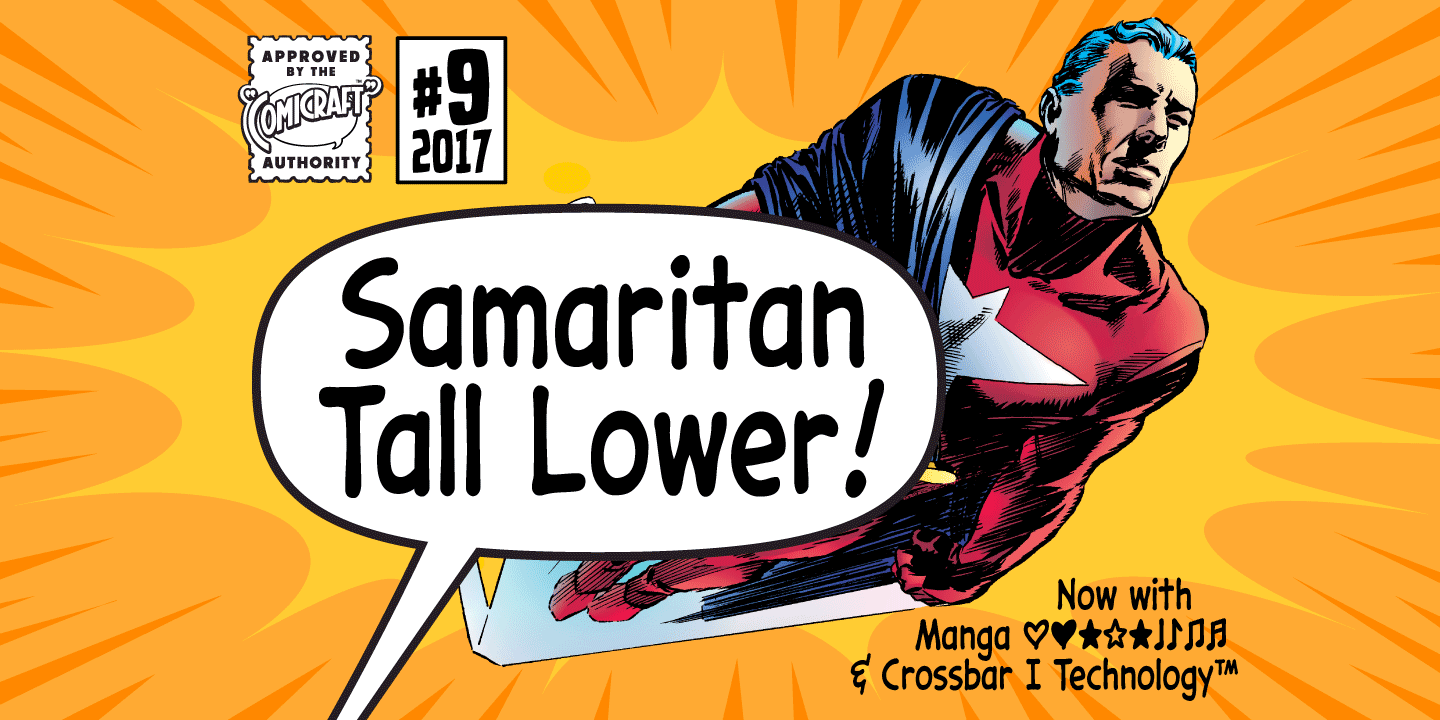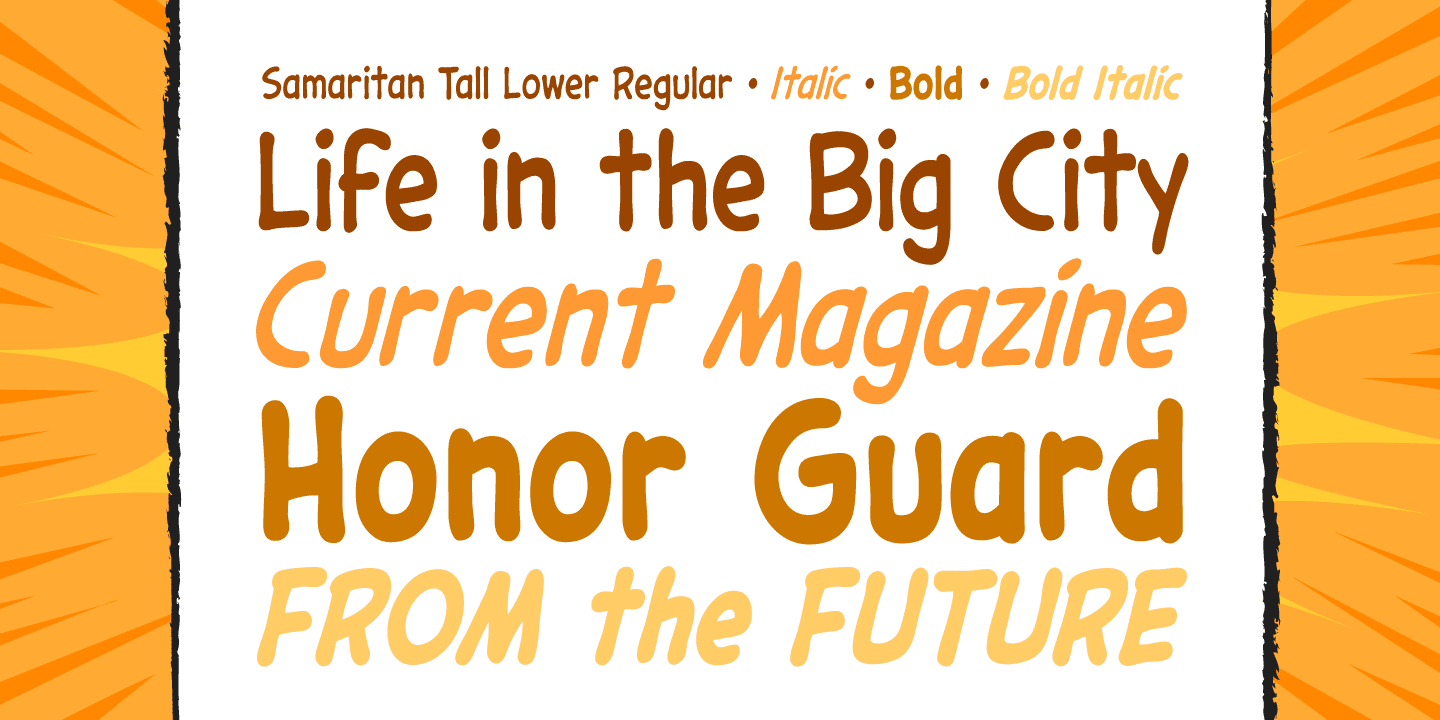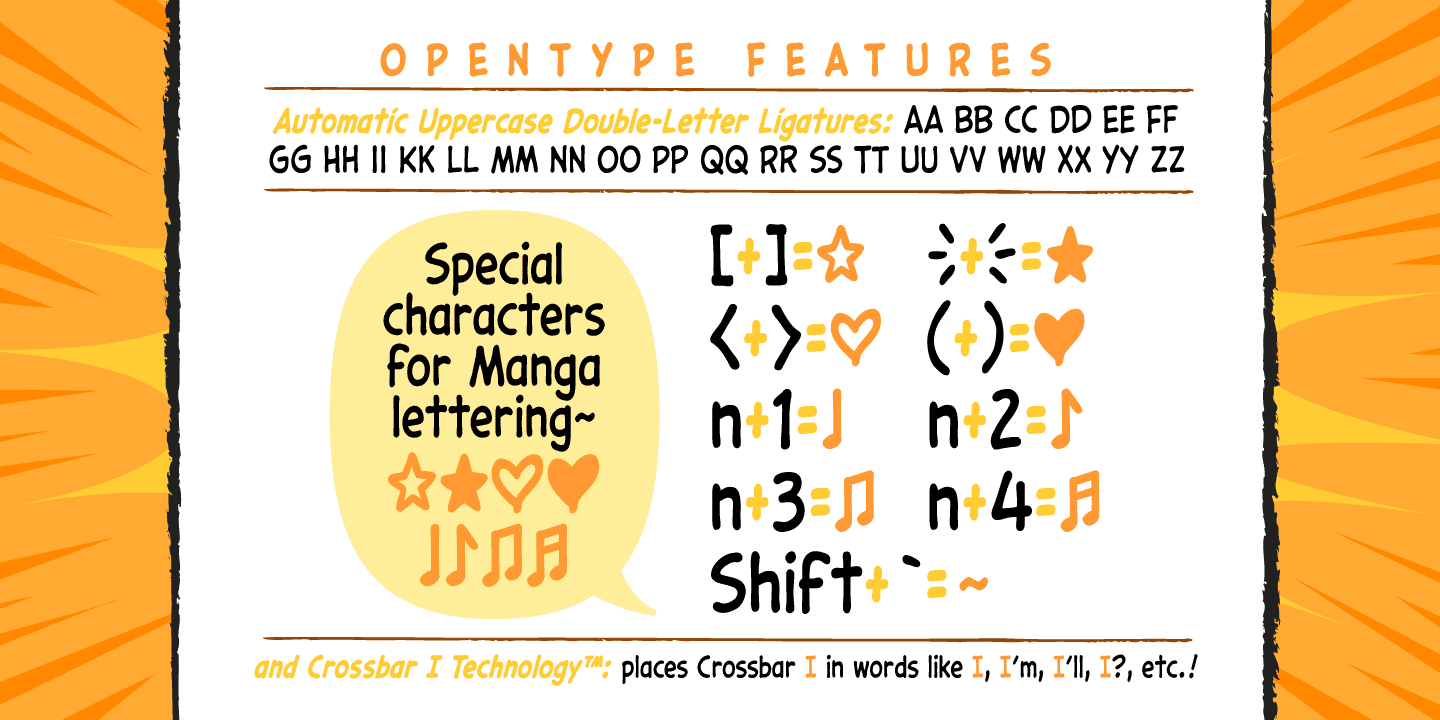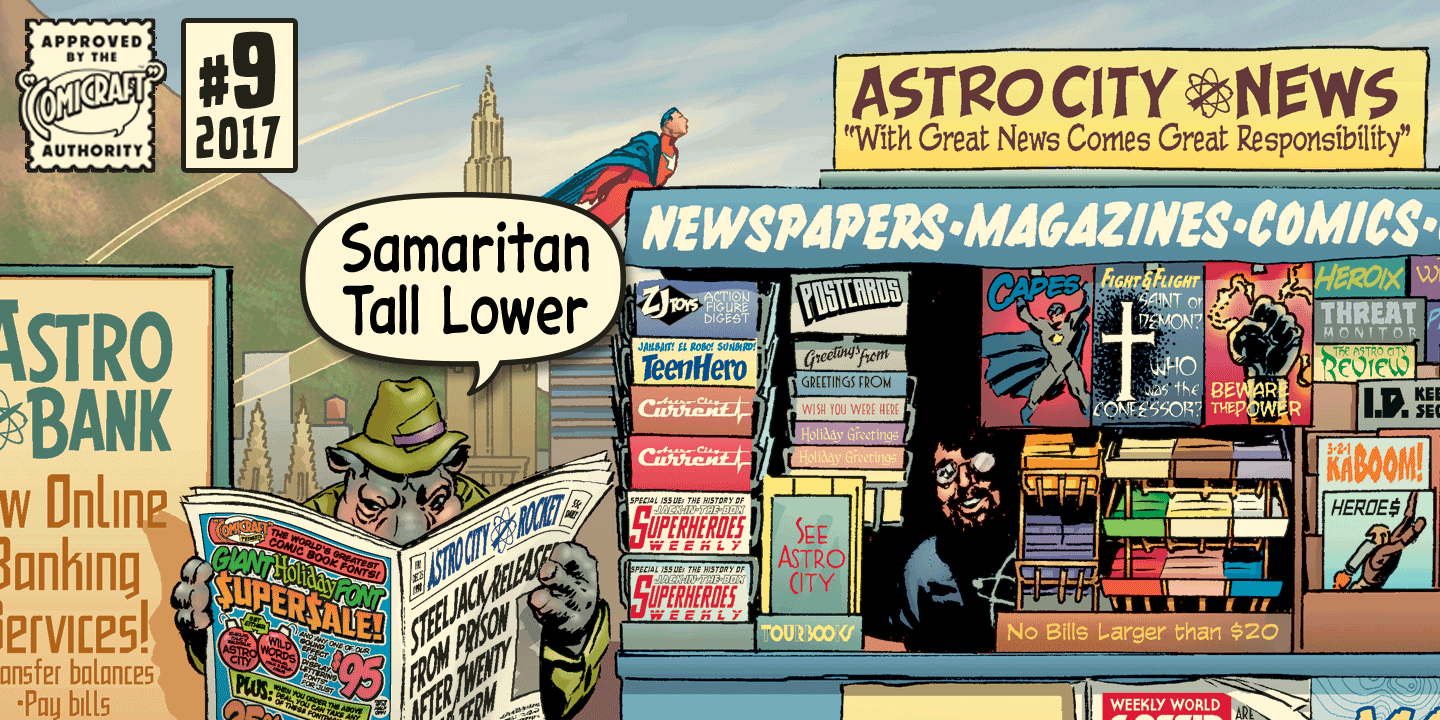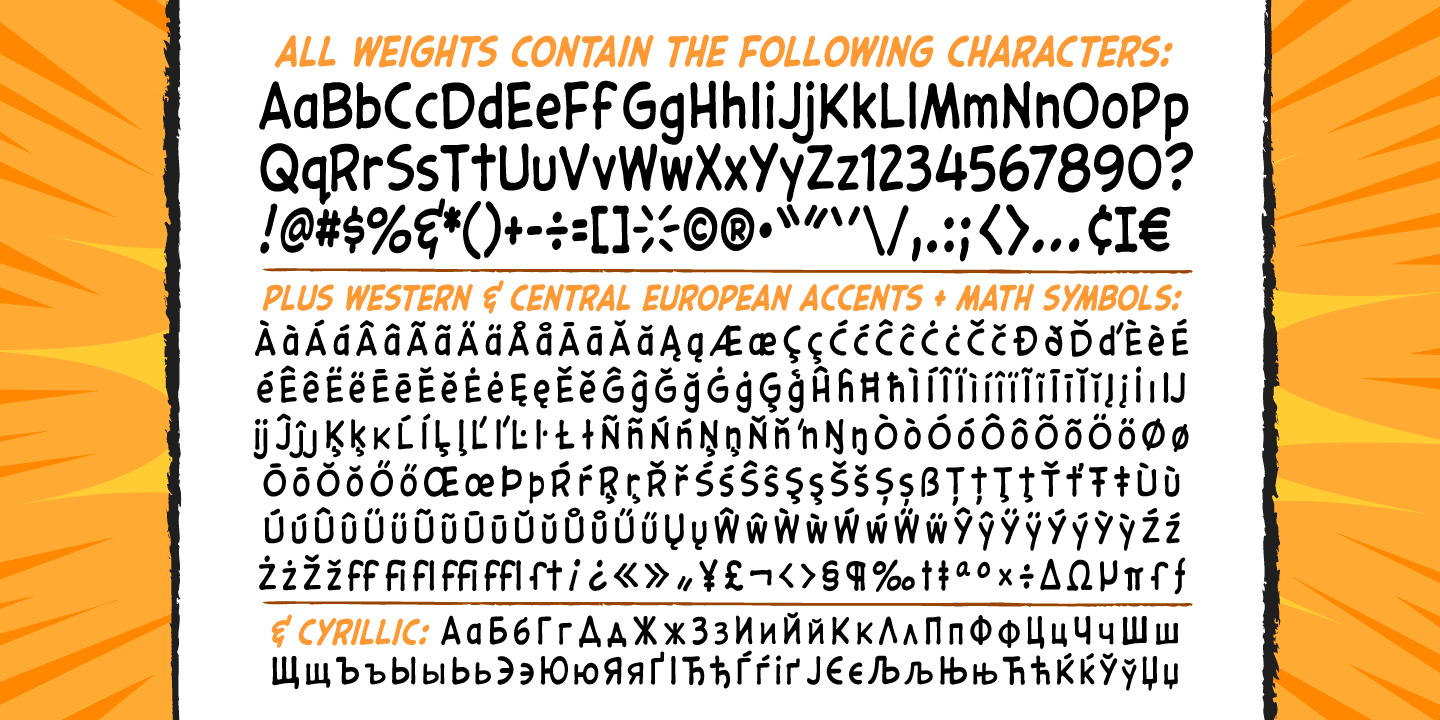
About the Samaritan Tall Lower Font
About Samaritan Tall Lower Font Family Fifteen hundred years from now, a man will be selected to go back in time to prevent a catastrophic event which turned his world into a dystopia. Sent back in time, he was enveloped in empyrean fire, the strands of energy that make up time itself. Crash-landing near Astro City in late 1985, he learned how to master and channel the empyrean forces that had suffused his body — finally learning to control his powers in time to prevent the destruction of the Space Shuttle Challenger, the event he had been sent to avert.
He described himself to journalists as nothing more than “a Good Samaritan”, and has continued to help his fellow man in Astro City ever since. John JG Roshell has also been struggling with the empyrean challenge of fitting all of Kurt Busiek’s ASTRO CITY dialogue into balloons with the regular Samaritan font, so he created the Samaritan Tall font to help his fellow comic book letterers! It’s kinda the same thing, really. Designers: John Roshell, Richard StarkingsPublisher: ComicraftFoundry: ComicraftDesign Owner: ComicraftMyFonts debut: Jul 17, 2018 Samaritan Tall Lower